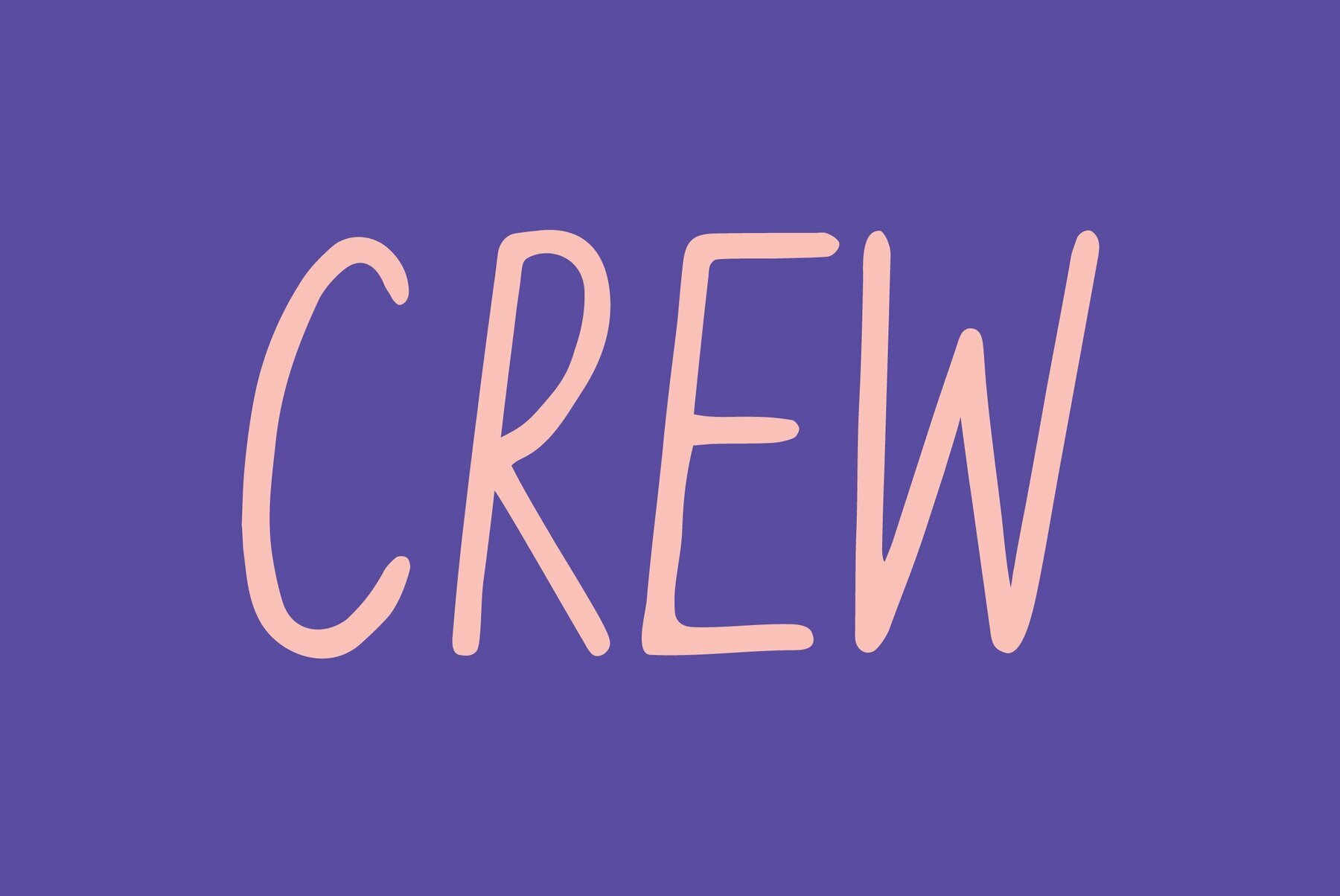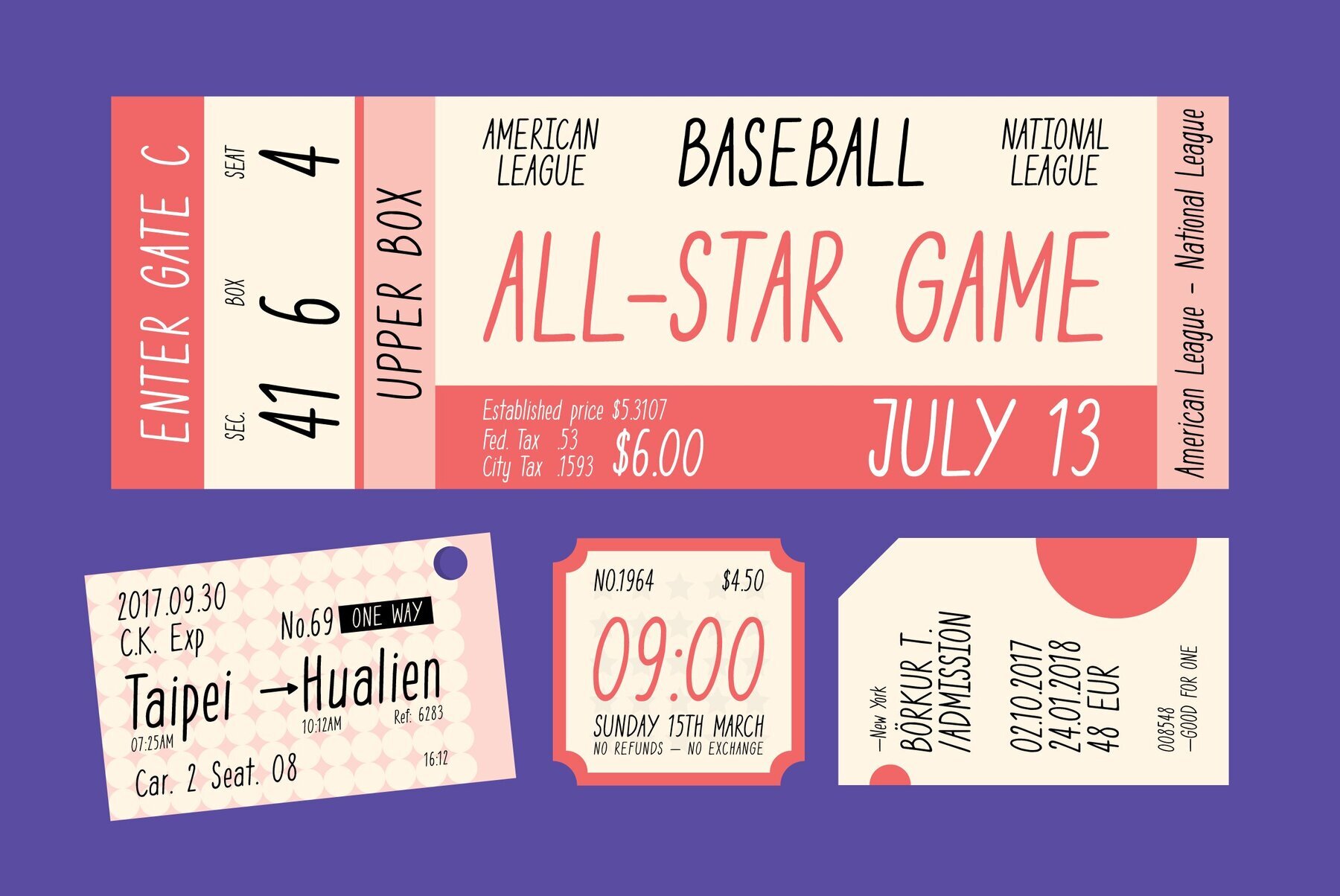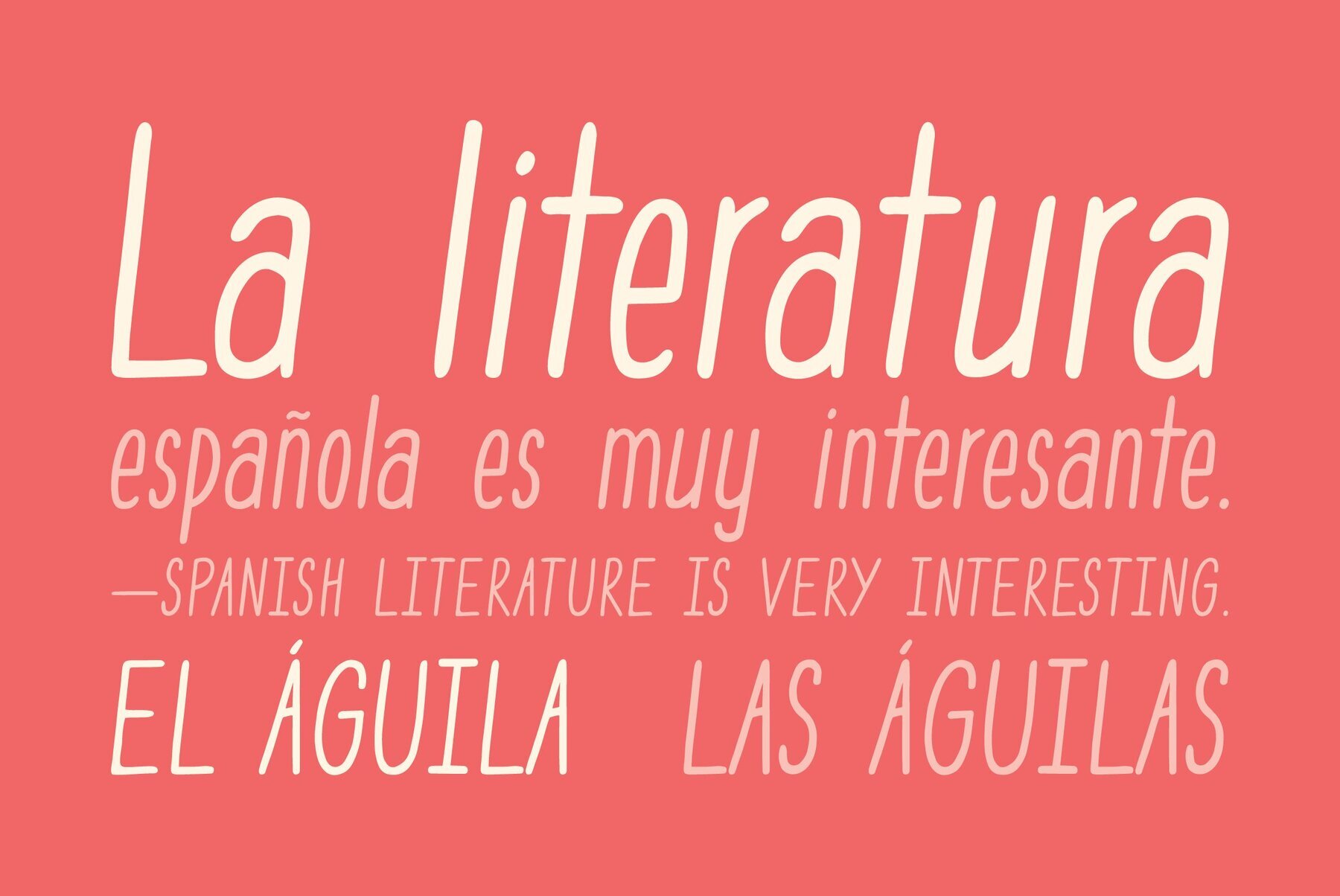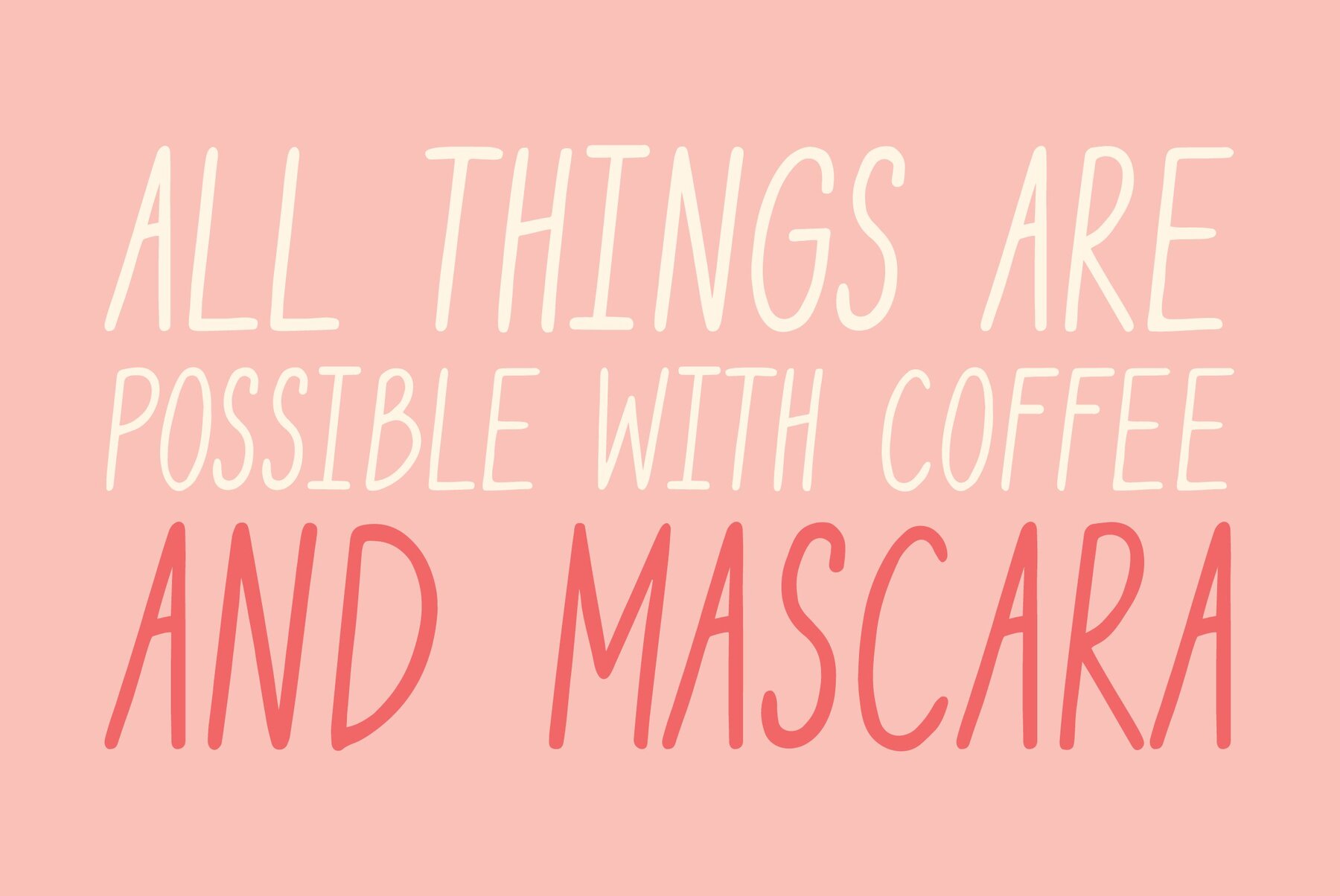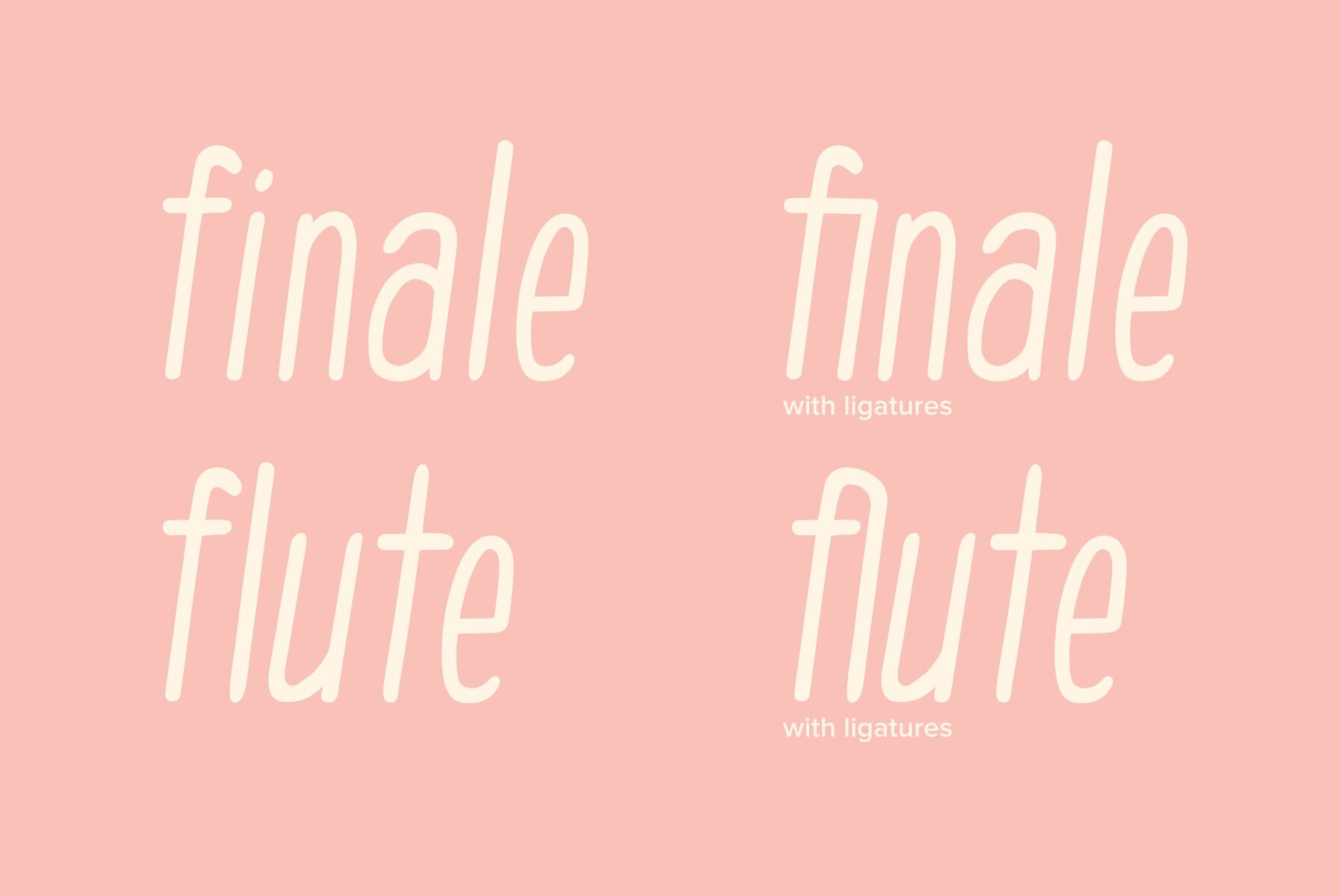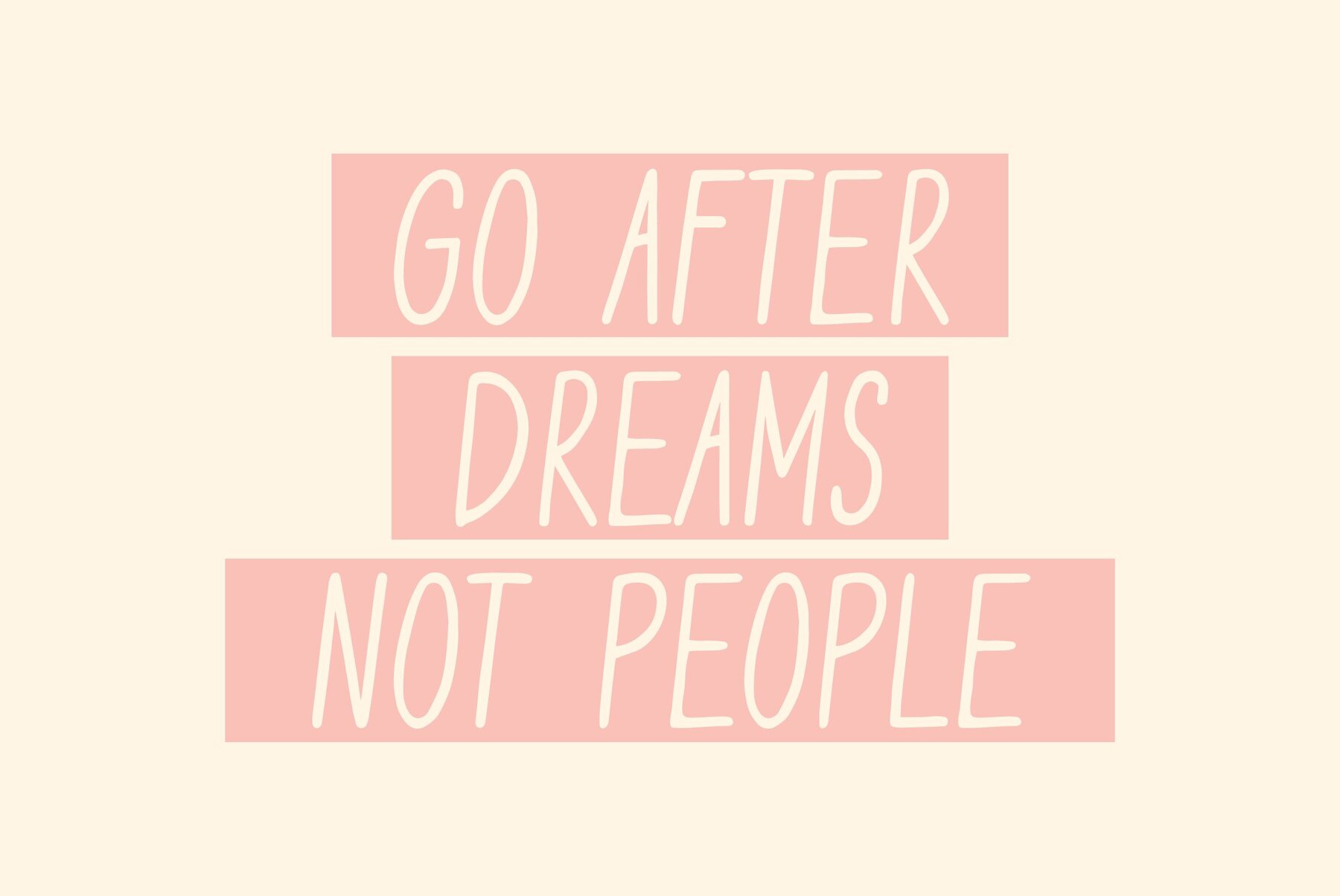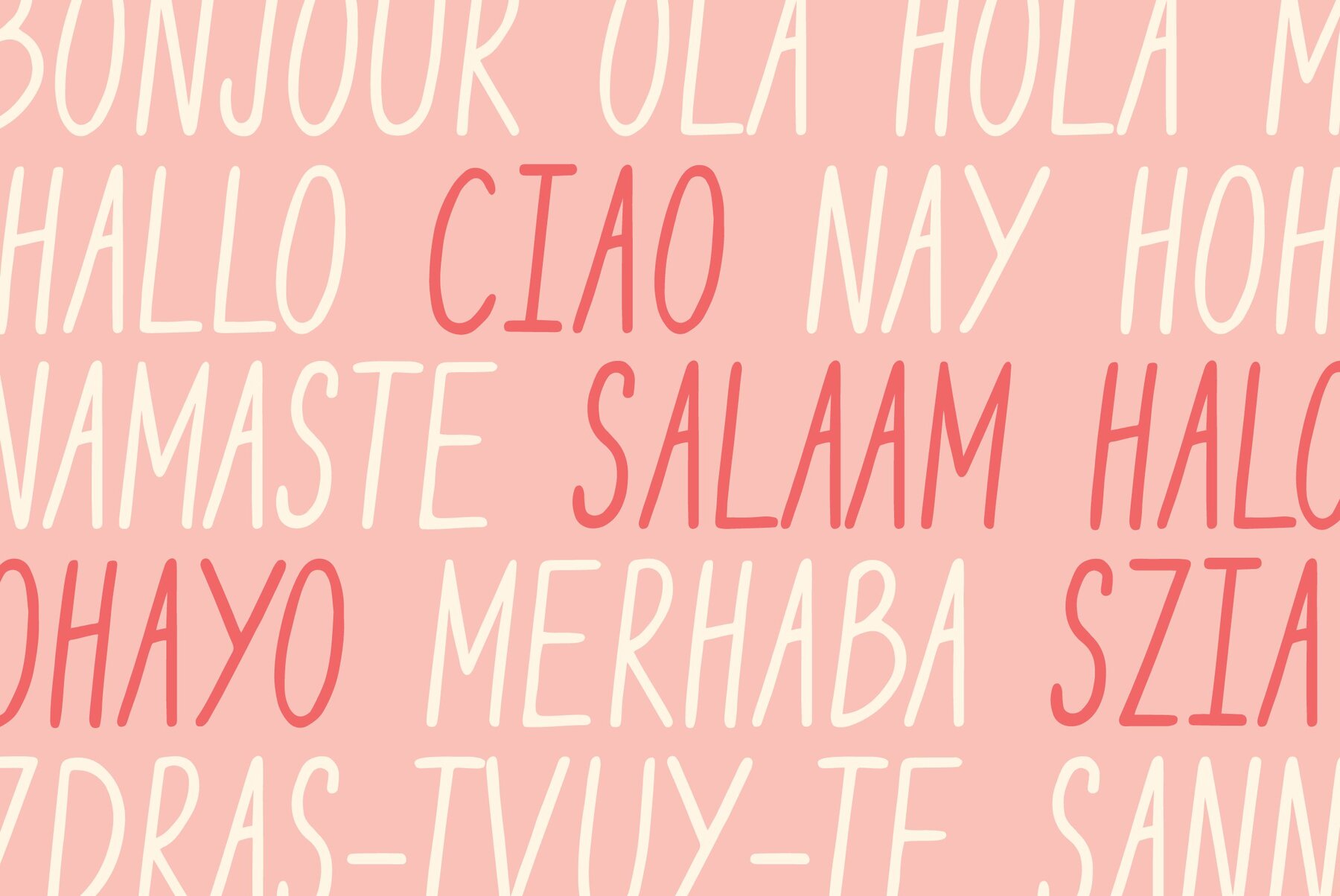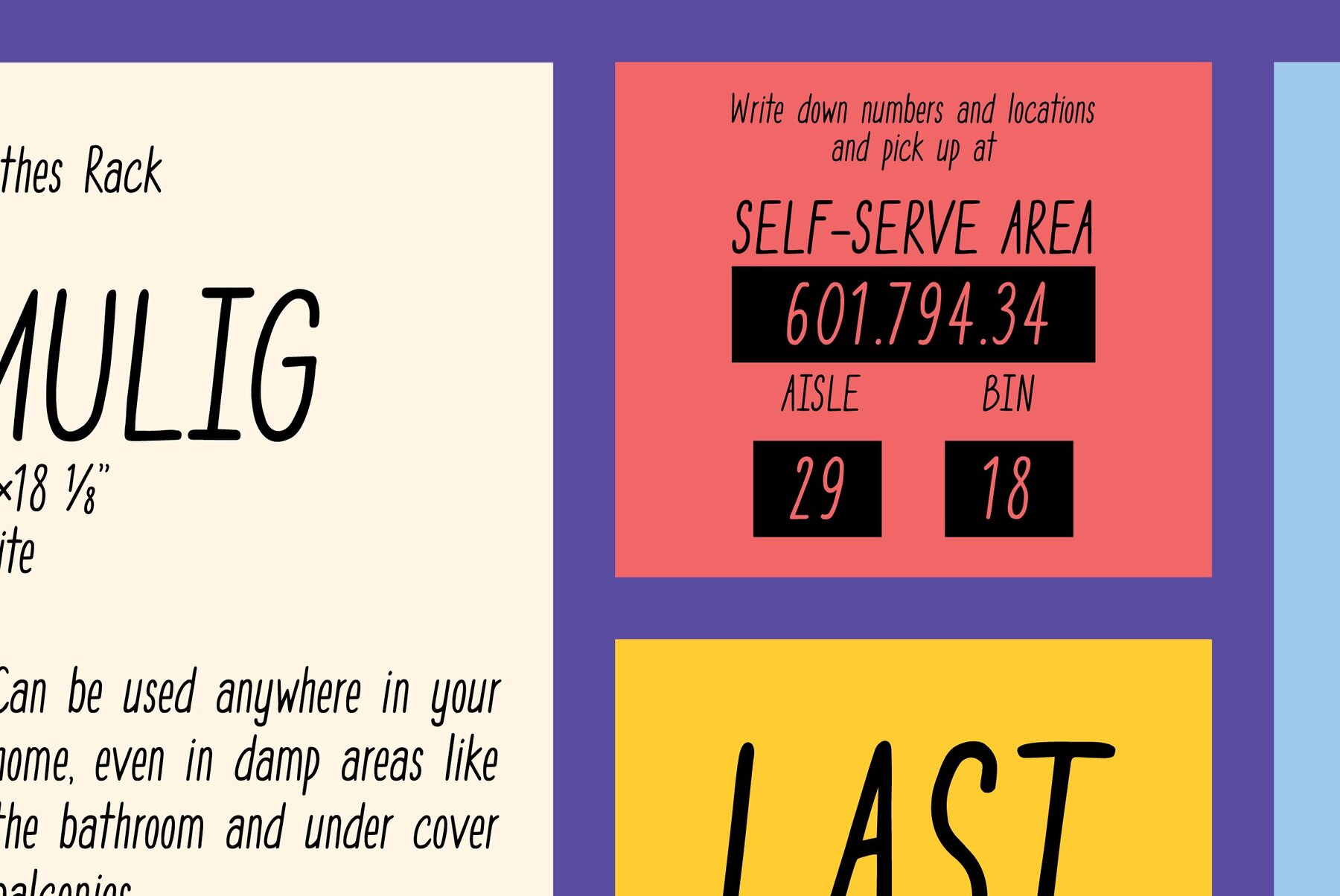
Delve into the world of uniqueness and creativity with YWFT Crew, the brainchild of innovative designers at YouWorkForThem. YWFT Crew is not just a font, it is an embodiment of casual expressiveness that beautifully merges the goodness of handwriting's charm with a hint of an urban flair. Think of a bustling farmer's market cozily tucked into a busy metropolitan landscape, YWFT Crew emanates a sense of being unpolished, wholesome yet pulsating with life and vibrancy. It's a graphic designer's delight and a marketing firm's dream. Effortlessly striking, YWFT Crew stands as an epitome of a unique hybrid of natural, organic strokes and subtle city-edge sophistication. Its hand-scripted sans serif lends an unexpected dimension to your designs, making them exude a rustic appeal while still retaining an urbane suaveness. For graphic designers looking for something out of the ordinary, an element that lets their designs communicate in a language that's pure, unaltered yet touched by city-life, YWFT Crew is the font to go for. And for marketing firms aiming to give their campaigns an edge of distinctiveness, YWFT Crew offers just the right combination of everyday charm and modern city aura. Features:YWFT Crew: A Game-Changer for Graphic Designers & Marketing Firms